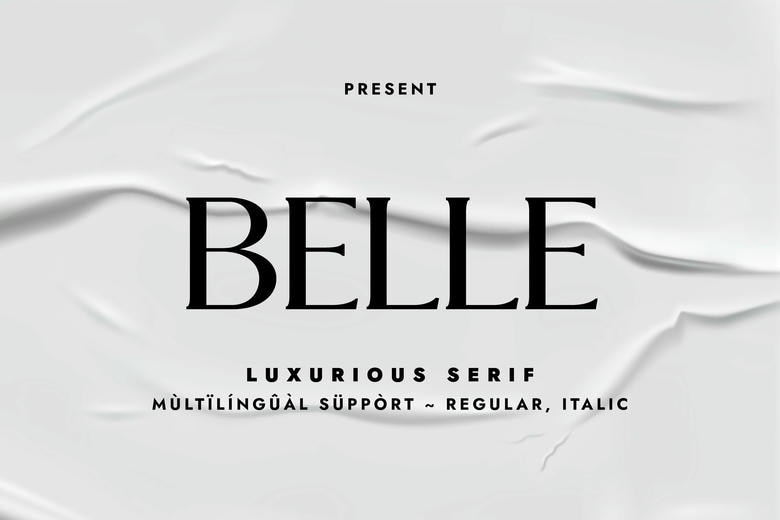
Belle Font
Belle as the name depicts is a minimalistic serif typeface that was considered in all glyph constructions convey the fragile sense of beauty. It is available in two effects; regular and effect. It possesses a strong image that makes it a legitimate option in terms of branding, logo design, cosmetics design, packaging, etc.
Belle Serif Font